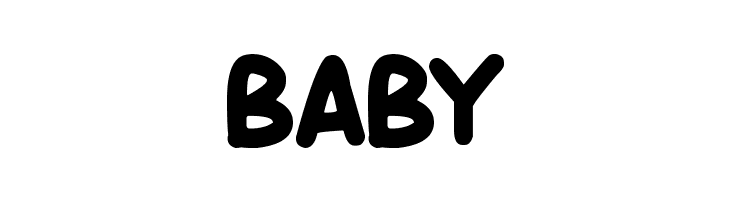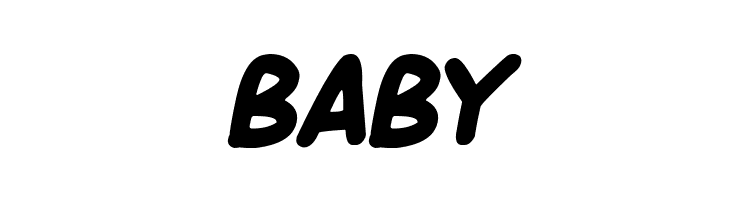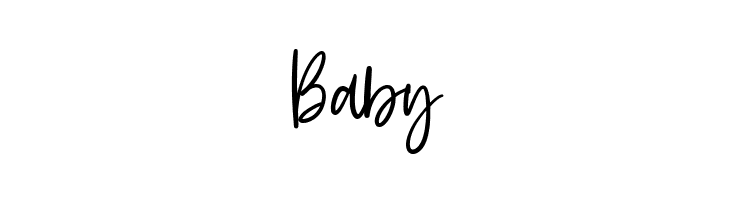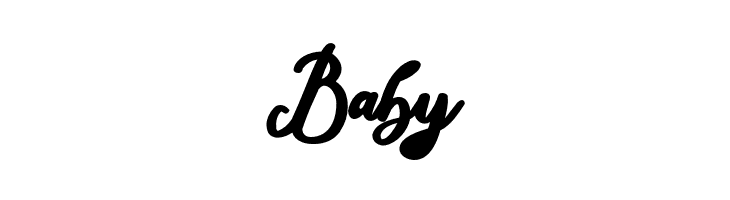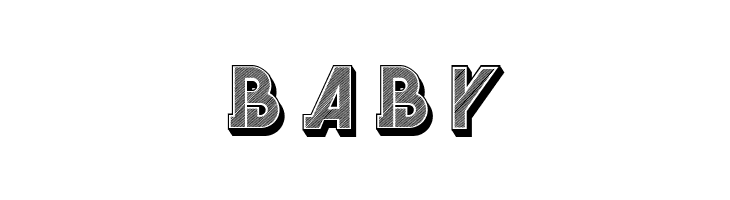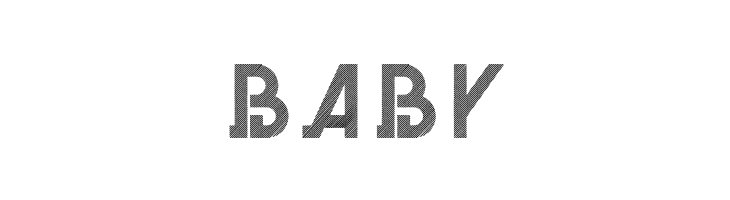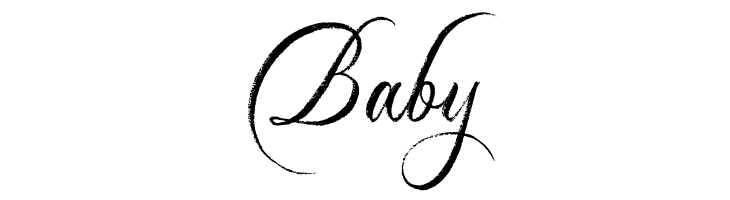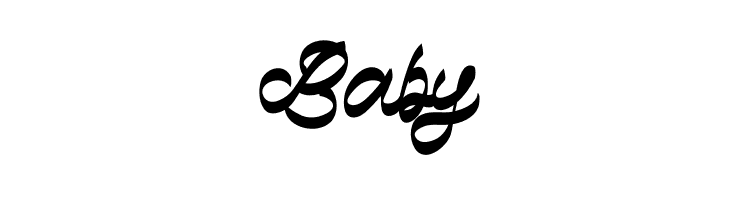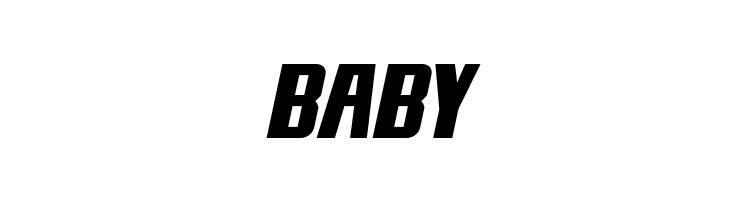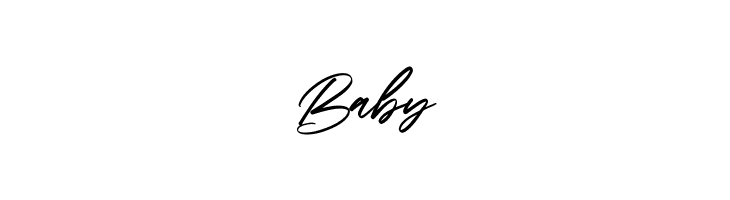
A fluid and elegant script font with graceful cursive strokes.
A dynamic and elegant script font with flowing, cursive letterforms.
A bold, block-like font with thick, consistent strokes and a slightly condensed width.
A bold, italicized font with high contrast and dynamic slant.
A bold, playful font with rounded edges and a retro vibe.
A bold, playful font with rounded, bubble-like characters.
A playful, hollow font with rounded edges and a whimsical design.
A playful, bold handwritten font with rounded, smooth letterforms.
A bold, angular font with a geometric and tribal-inspired design.
An elegant and flowing script font with artistic cursive strokes.
An elegant, high-contrast font with tall, narrow letters and a modern style.
A bold, playful handwritten font with thick strokes and rounded edges.
A dynamic, flowing script font with elegant, cursive strokes and a slight italic slant.
A bold, elegant script font with flowing, cursive letterforms.
A cursive font with elegant, sweeping strokes and artistic flair.
A dynamic and elegant script font with flowing cursive letterforms.
A playful, casual handwritten font with fluid, irregular strokes.
A bold, 3D hollow font with intricate line work and a striking appearance.
A geometric, hollow font with bold, angular lines and a modern industrial style.
A bold, geometric font with modern, artistic cutouts.
A whimsical, playful script font with elegant, flowing cursive letters.
A playful, handwritten font with smooth, rounded edges and consistent stroke width.
A bold, playful font with rounded edges and a hand-drawn style.
A bold, playful italic font with rounded, flowing characters.
A bold, three-dimensional font with a strong, angular design.
An elegant script font with sweeping curves and high contrast, perfect for decorative use.
A flowing, cursive font with elegant, sweeping strokes and a natural handwriting style.
A dynamic and fluid script font with elegant, flowing letterforms.
A bold, cursive font with a classic yet modern calligraphic style.
A bold, expressive script font with brush-like strokes and dynamic flow.
A bold, dynamic script font with elegant, flowing cursive letters.
A bold, cursive font with a modern and flowing style.